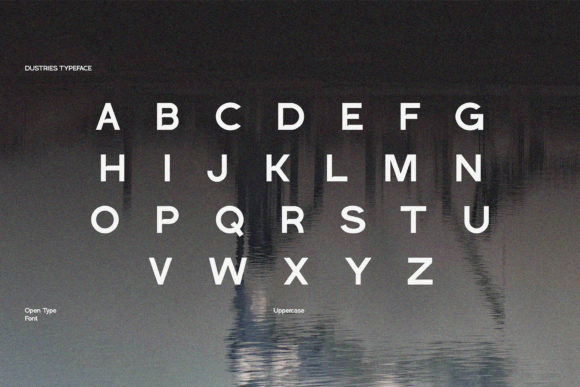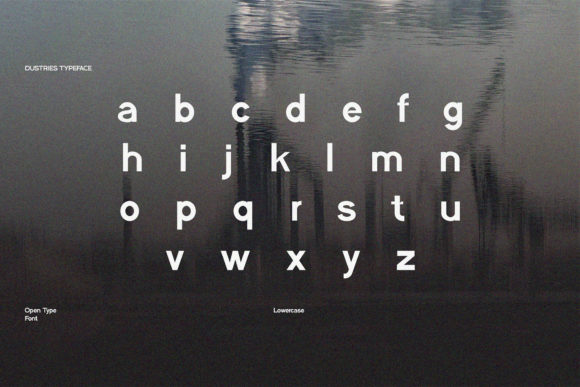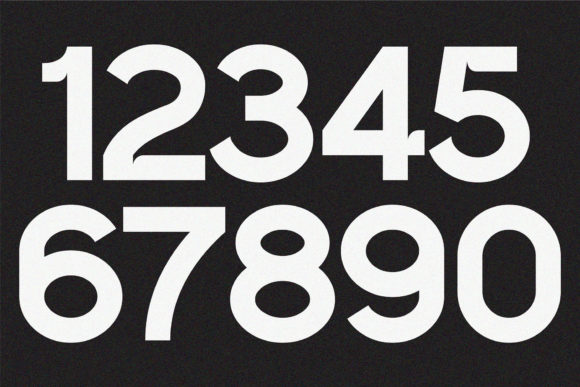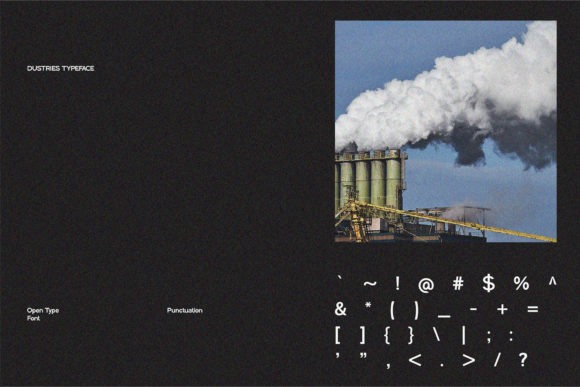
Unleashing Creativity with the Dustries Font
Remember that moment when a new font suddenly sparks an idea for your next design project? For many creatives, that’s the magic of typography. It’s a moment when the right combination of letters and lines can elevate your work from ordinary to extraordinary. For those who crave that extra oomph, we’re excited to introduce you to the Dustries Font – a bold and cool display font that’s perfect for making a statement.
Whether you’re designing web pages, crafting business cards, or working on a unique project that requires a one-of-a-kind touch, the Dustries Font is an ideal choice. Its versatility and unique style make it a valuable asset for designers looking to add some personality to their work. By incorporating the Dustries Font into your designs, you’ll be able to convey your message with confidence and style.
Dustries Font Key Features
- Unique Characteristics: Dustries Font features a unique blend of industrial and organic elements, resulting in a distinctive and eye-catching design that sets it apart from other fonts.
- Font Family: Dustries Font is part of a larger font family, offering a range of weights and styles to suit various design needs, from light and delicate to bold and dramatic.
Dustries Font Review
I’ve been experimenting with the Dustries font for a while now, and I have to say, it’s been a mixed bag for me. ✨ On the one hand, I love its unique and quirky feel, which adds a touch of personality to any design. The font’s bold and playful strokes make it perfect for headings and titles, and the OpenType features add a nice layer of sophistication. The designer has clearly put a lot of thought into creating a font that’s both stylish and functional.
That being said, there are some limitations to consider. ⚠️ For one, the font can be quite dense, which may make it difficult to read at smaller sizes. Additionally, some of the character combinations can look a bit awkward, particularly in certain languages. The font also doesn’t come with a wide range of language support, which may be a drawback for designers working on multilingual projects.
Overall, I think the Dustries font is a solid choice for designers looking for a bold and playful font. While it may not be perfect, its strengths far outweigh its weaknesses, and with some careful consideration of its limitations, it can be a great addition to any design project.
Here are some specific features that I like about the font:
- Unique and quirky feel
- Perfect for headings and titles
- OpenType features add sophistication
- Playful and bold strokes
Dustries Font is ideal for:
1. Luxury branding and packaging design.
2. High-end fashion and beauty advertising.
3. Premium wine and spirits branding.
4. Upscale restaurant and hotel design.
5. Any design project requiring a touch of sophistication and elegance.